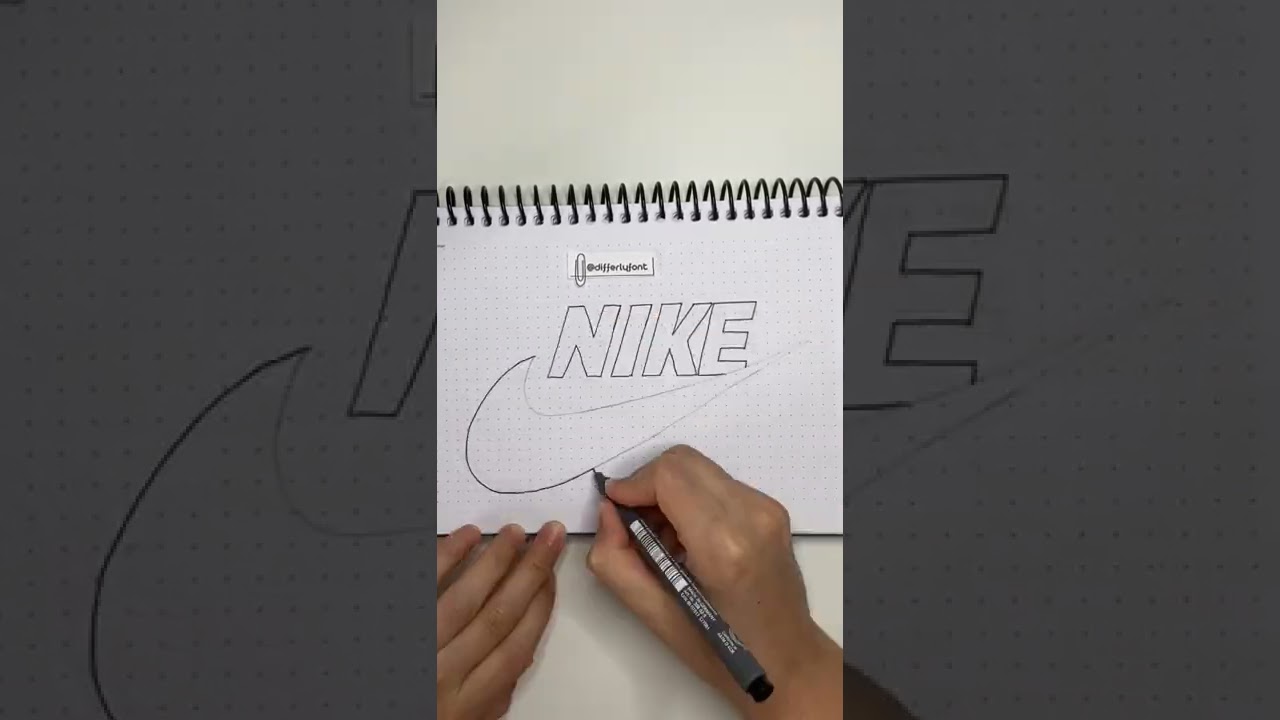
Nike Font Logo
Nike Font Download Fonts The nike logo uses a customized version of futura nd nike 365, typically set in a bold, condensed, and slightly oblique style. paired with the iconic swoosh, the type is designed for clarity, impact, and instant recognition — core principles that define nike’s branding. Nike applies futura across logo designs, advertising campaigns, product packaging, and digital platforms. the “just do it” slogan uses this typeface consistently. The font that is used in the official nike logo is a typeface by the name of futura condensed bold oblique. this is a classic sans serif font that was created by the font author paul renner (bauer type foundry) back in 1928. We have 187 free nike logo png, transparent images, vector logos, logo templates and icons. you can download in png, svg, ai, eps, cdr formats.
Nike Logo Font Download Fonts The font that is used in the official nike logo is a typeface by the name of futura condensed bold oblique. this is a classic sans serif font that was created by the font author paul renner (bauer type foundry) back in 1928. We have 187 free nike logo png, transparent images, vector logos, logo templates and icons. you can download in png, svg, ai, eps, cdr formats. The nike logo, also known as the “swoosh”, was designed by a graphic student carolyn davidson in 1971. the font used for the “nike” lettering appearing above the swoosh looks like an italicized impact, a sans serif typeface created by geoffrey lee in 1965. Looking for nike fonts? click to find the best 4 free fonts in the nike style. every font is free to download!. The nike font, most commonly associated with its logo, is rooted in futura bold, a geometric sans serif typeface designed by paul renner in 1927. the font embodies the brand’s minimalist yet bold aesthetic, combining modernity with clarity. Our online nike font generator enables users to generate text in the nike logo style by simply entering their desired text. the tool offers a variety of font options and variations that closely resemble the typography used by nike.
Nike Font Dafont Free The nike logo, also known as the “swoosh”, was designed by a graphic student carolyn davidson in 1971. the font used for the “nike” lettering appearing above the swoosh looks like an italicized impact, a sans serif typeface created by geoffrey lee in 1965. Looking for nike fonts? click to find the best 4 free fonts in the nike style. every font is free to download!. The nike font, most commonly associated with its logo, is rooted in futura bold, a geometric sans serif typeface designed by paul renner in 1927. the font embodies the brand’s minimalist yet bold aesthetic, combining modernity with clarity. Our online nike font generator enables users to generate text in the nike logo style by simply entering their desired text. the tool offers a variety of font options and variations that closely resemble the typography used by nike.
Nike Font Fonts Hut The nike font, most commonly associated with its logo, is rooted in futura bold, a geometric sans serif typeface designed by paul renner in 1927. the font embodies the brand’s minimalist yet bold aesthetic, combining modernity with clarity. Our online nike font generator enables users to generate text in the nike logo style by simply entering their desired text. the tool offers a variety of font options and variations that closely resemble the typography used by nike.